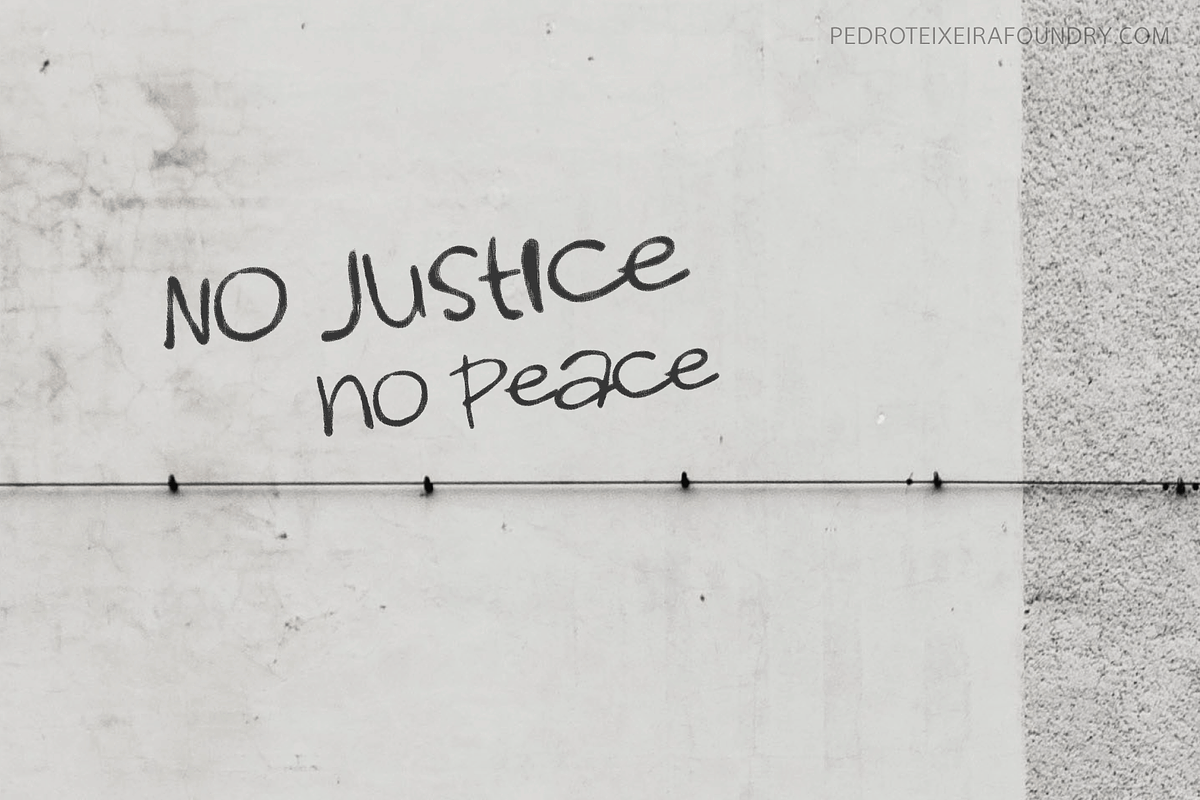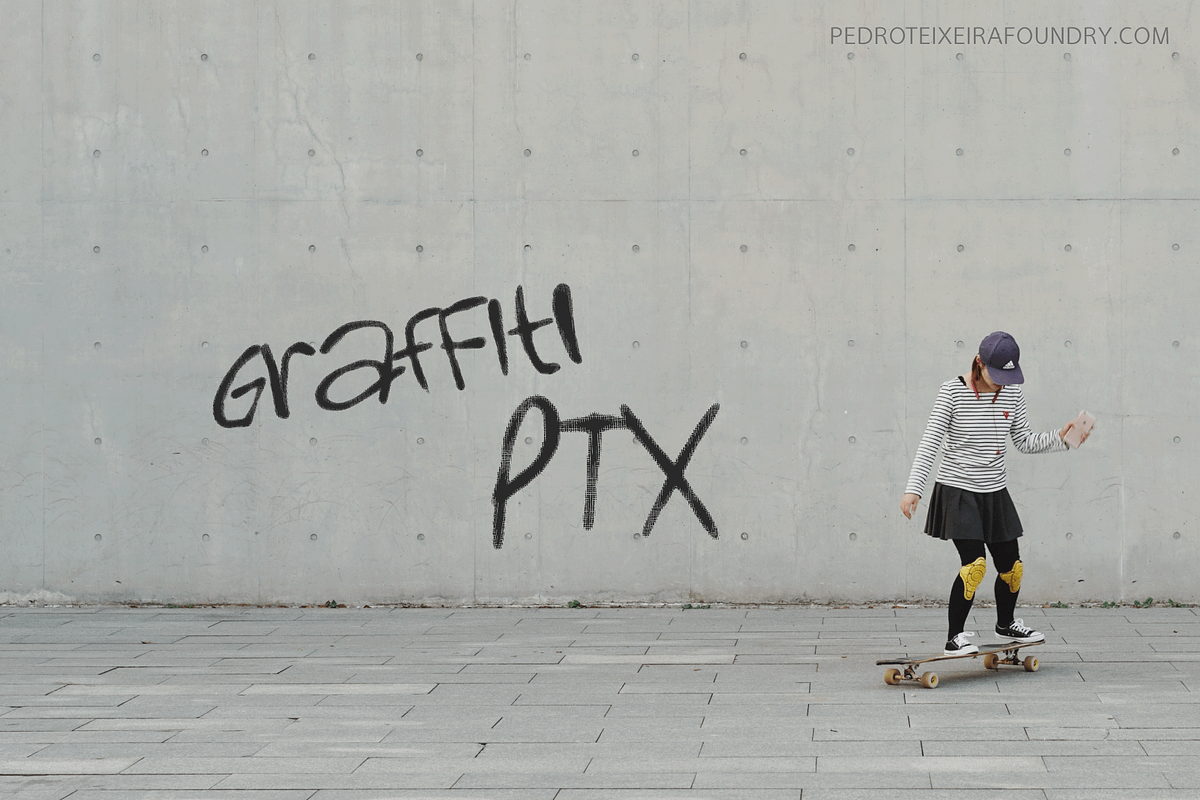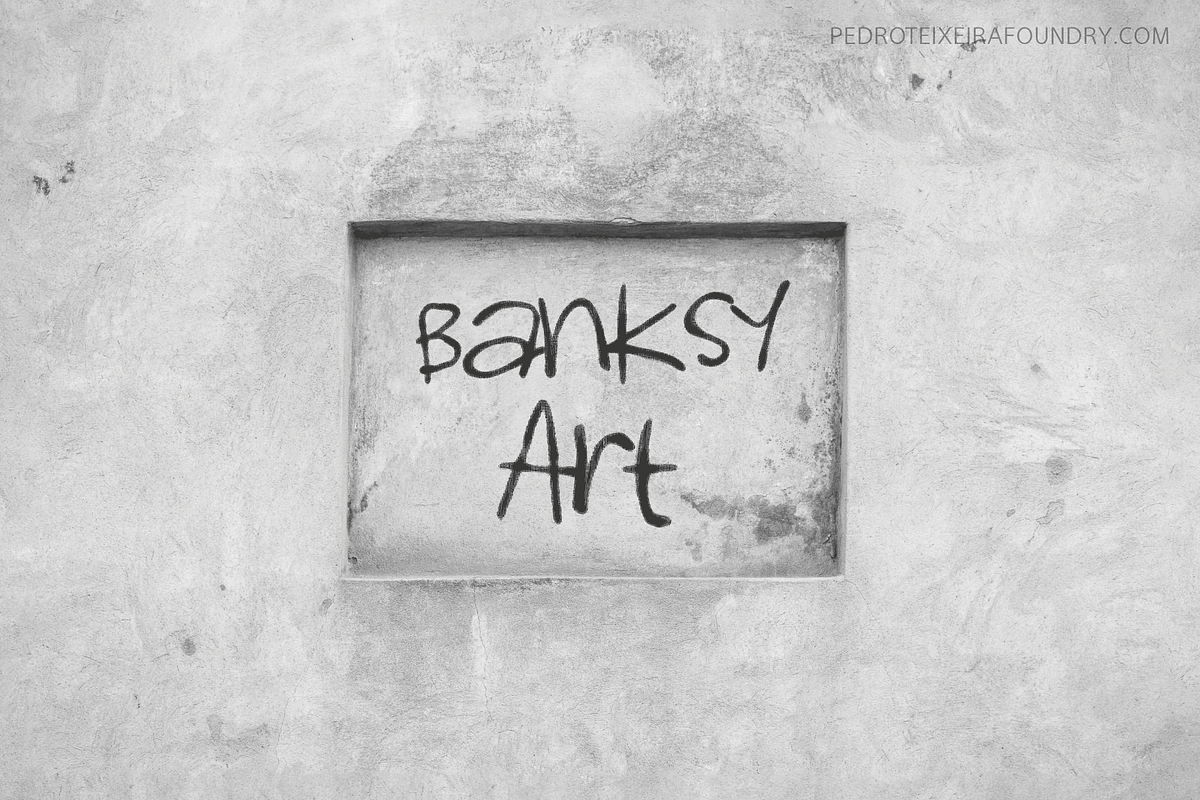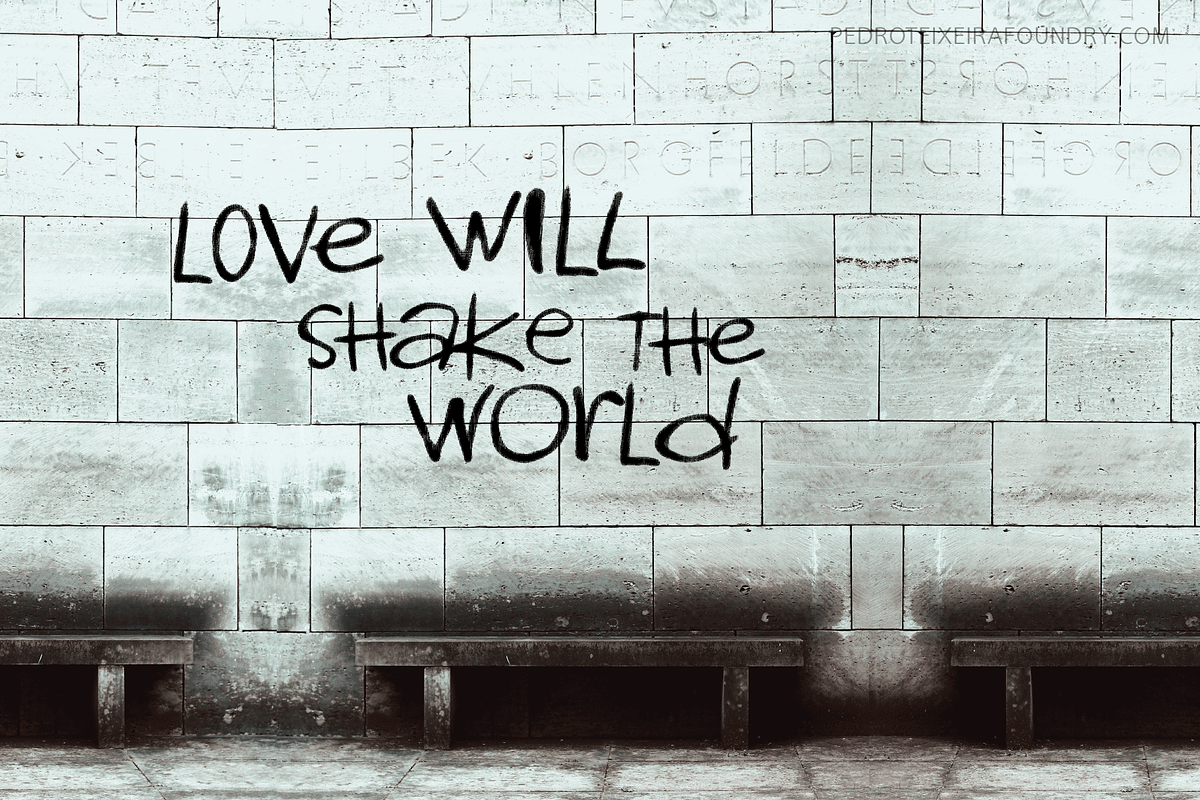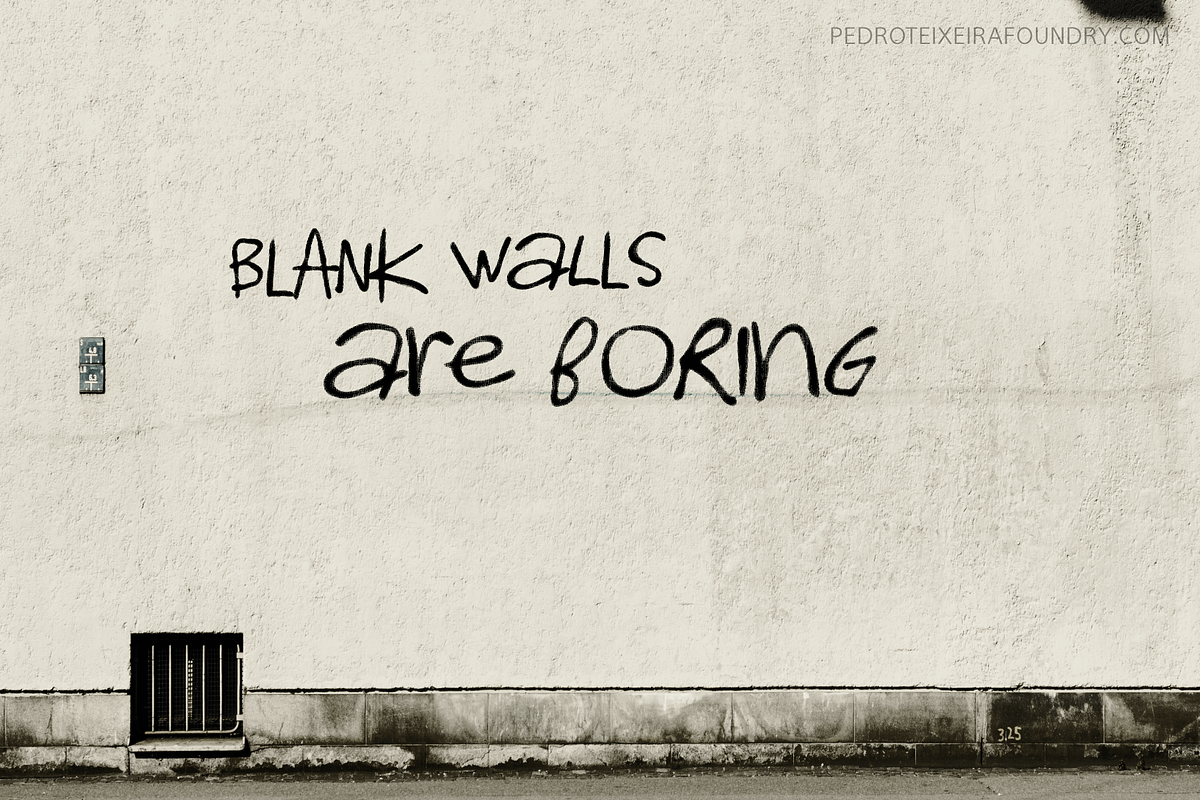
Graffiti PTx
This font was inspired on graffiti texts, sentences of street walls. The intention it's to give an style of old school words spreaded on some walls around the world. This can be cool for an design of a poster, headlines and so on.